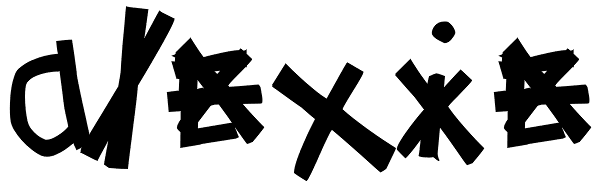
Alexie
Alexie was developed by Roland John Goulsbra in 1994. In this font, Goulsbra combined letter and pictogram to create a font particularly suited for unconventional text designs and text interpretations.